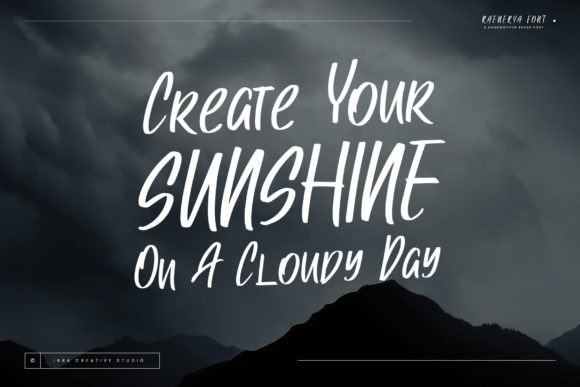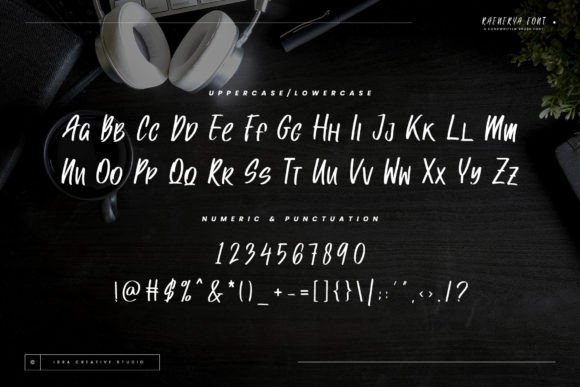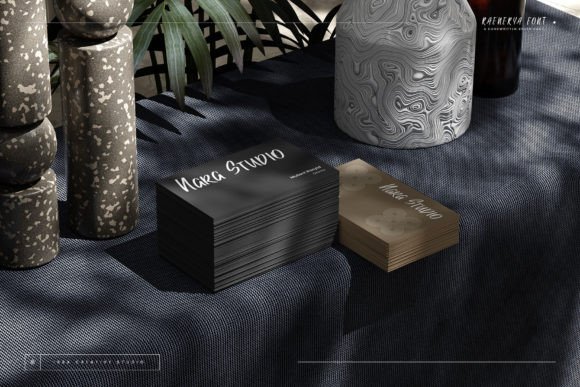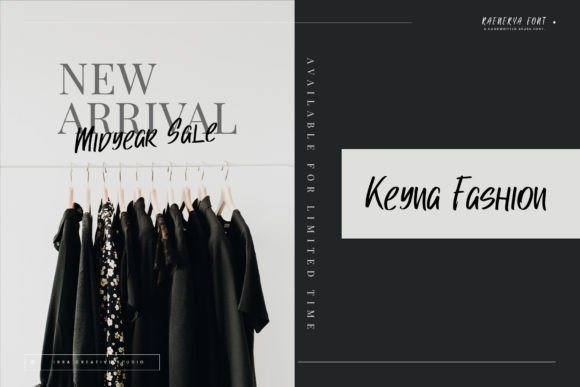
Raenerya Font Font
Raenerya, a handwritten brush font, brings a touch of artistic spontaneity to the world of typography. With its gracefully imperfect strokes, Raenerya captures the essence of free-flowing brushwork, creating an authentic and organic feel. Each character is imbued with a sense of fluidity and warmth, reminiscent of handcrafted lettering on canvas.